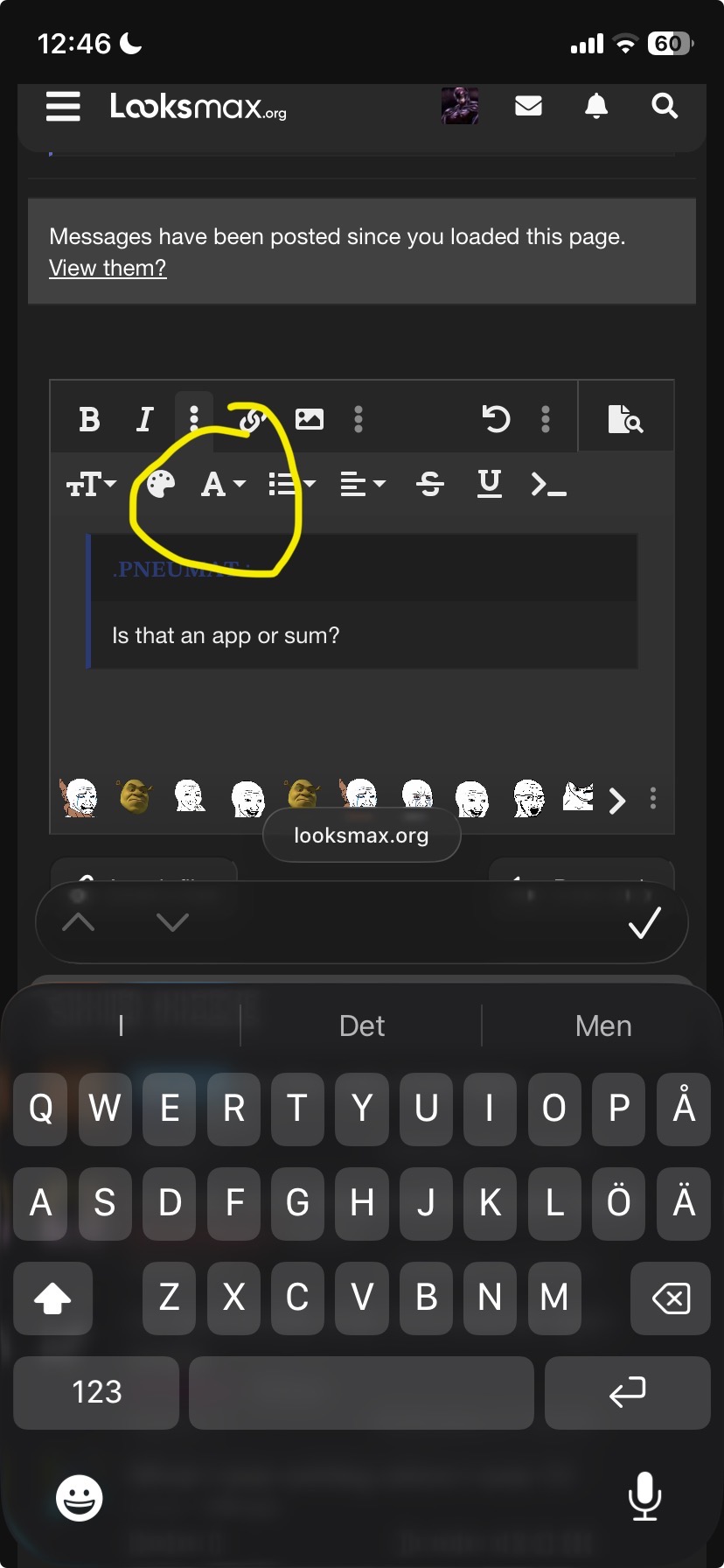
IM ONLY WRITING IN A SPECIFIC FONT
I think from now on Iโ€™ll try to write with a specific font that looks cool๐Ÿค” yk?
It should match my profile ofc so it should kinda be something that looks like it was carved into stone or something
Imagen if you could add a specific font the same way you can add a banner and stuff
And so every time you type something it automatically goes in that font :FeelCuteMan:
Anyway ama try to find sum that fits
Hello, this is lowkey tuff
or maybe this
I found an app that can make me type in specific fonts:FeelCuteMan:
Look
sounds really stupid and annoying
Ab3-cz font (beta style)
[B][I]Hellooooooo, okay i will show you[/I][/B]
so first press bold and italic, then change text to coulier, then press the 3 things beside A